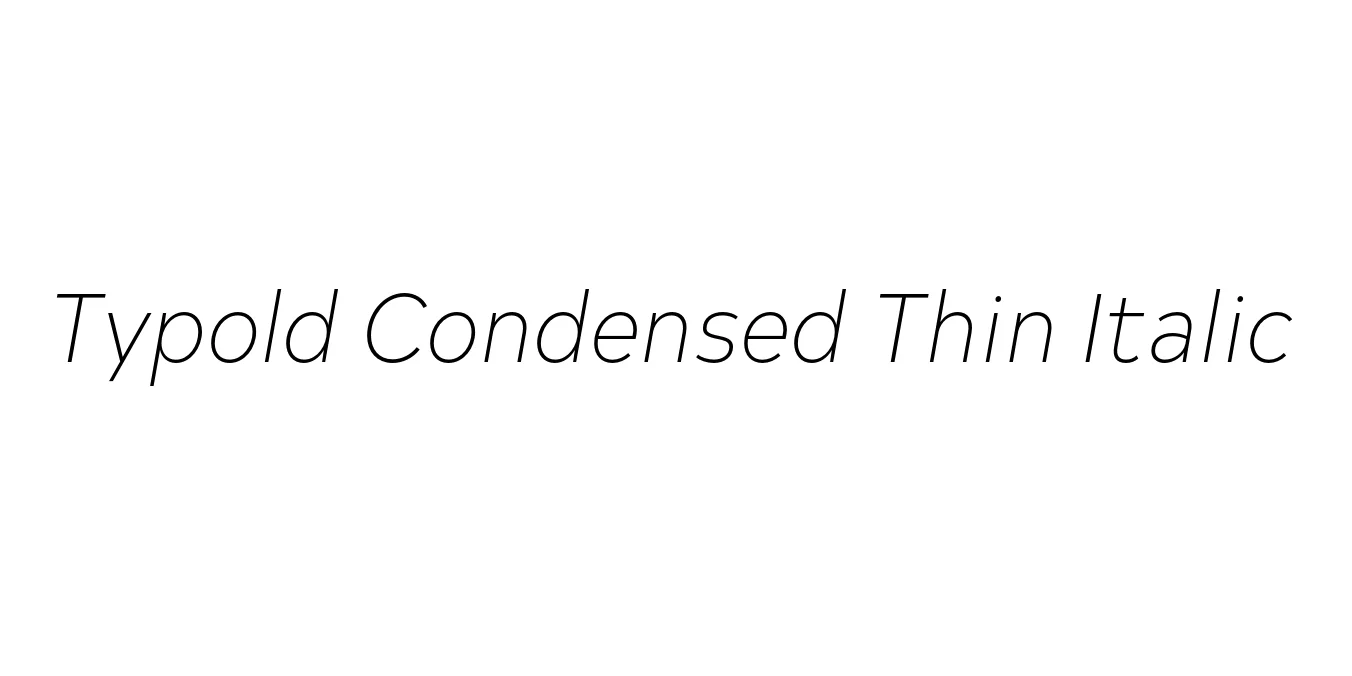
Typold Condensed Thin Italic
Designed by Jonathan Hill
Typold Condensed Thin Italic is a sophisticated geometric sans-serif typeface designed by Jonathan Hill for The Northern Block. This specific weight belongs to the expansive Typold family, which was meticulously engineered to provide a balanced and functional aesthetic for modern design. The Thin Italic variant offers an elegant, razor-sharp profile, combining mathematical precision with a subtle lean that adds movement and sophistication to editorial layouts.
The condensed proportions of this typeface make it an ideal choice for high-impact typography where horizontal space is limited. Its high-quality construction ensures clarity even at smaller sizes, though its thin weight is best showcased in large-scale headings or premium branding materials. By blending contemporary geometric structures with refined calligraphic sensibilities, Typold Condensed Thin Italic stands out as a versatile tool for designers seeking a clean, minimalist look with a professional edge.
Typold Condensed Thin Italic Best Uses
Perfect for high-fashion magazine headlines and sophisticated article titles.
Ideal for luxury brand logos and minimalist corporate identities requiring a sharp look.
Striking use for hero sections and banner text on modern, clean websites.
Excellent for space-saving vertical typography in modern event posters.